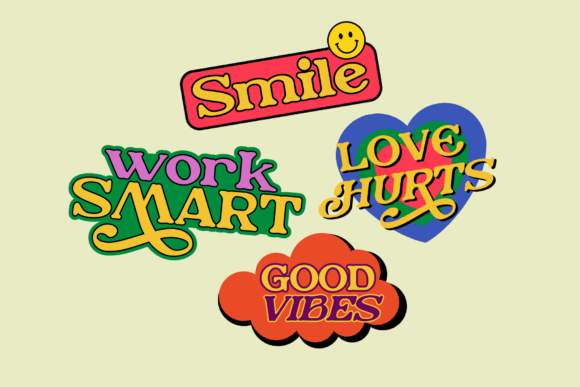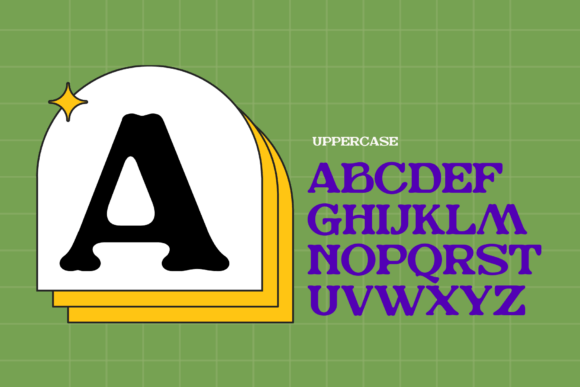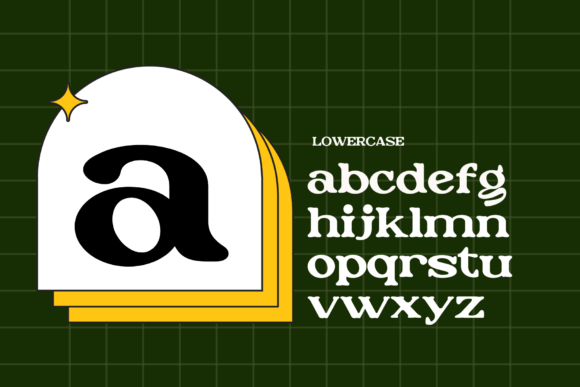
Introduction to Retro Nakjoy Font
Experience the charm of our Retro Nakjoy with Regular and Italic font, a delightful blend of playful fun and classic serifs.
With enchanting calligraphy-like alternates and a heartwarming handwritten style, this display font effortlessly adds character and nostalgia to any creative project It’s a truly memorable font that infuses vintage charm in a modern context, promising to make your designs stand out in a unique, engaging way.